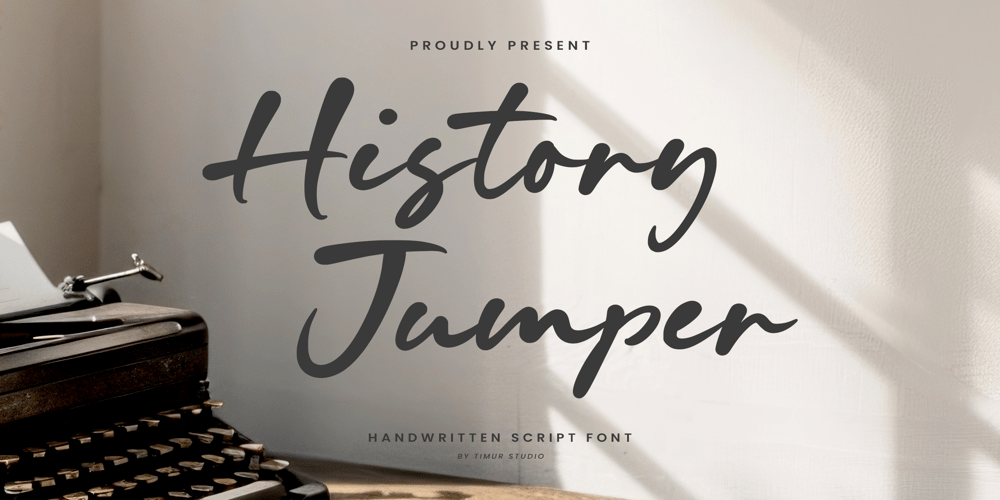
History Jumper Font Family was designed by Wara Sigit Tri Pamungkas and published by Timurtype. History Jumper contains 1 styles and family package options. Introduced by Timurtype Studio!History Jumper is a Handwritten Script Font This font is a captivating handwritten script font that blends elegance with a touch of nostalgia. Its fluid strokes and artistic flourishes evoke a sense of warmth and authenticity, making it perfect for invitations, creative branding, and storytelling projects. With a unique balance of legibility and style, History Jumper brings a timeless charm to any design, inviting users to leap into a world of creativity and expression.History Jumper Font also supports multilingualismEnhance your designs with our original fonts, feel free to comment or provide feedback, Enjoy the fonts 😊Thank You